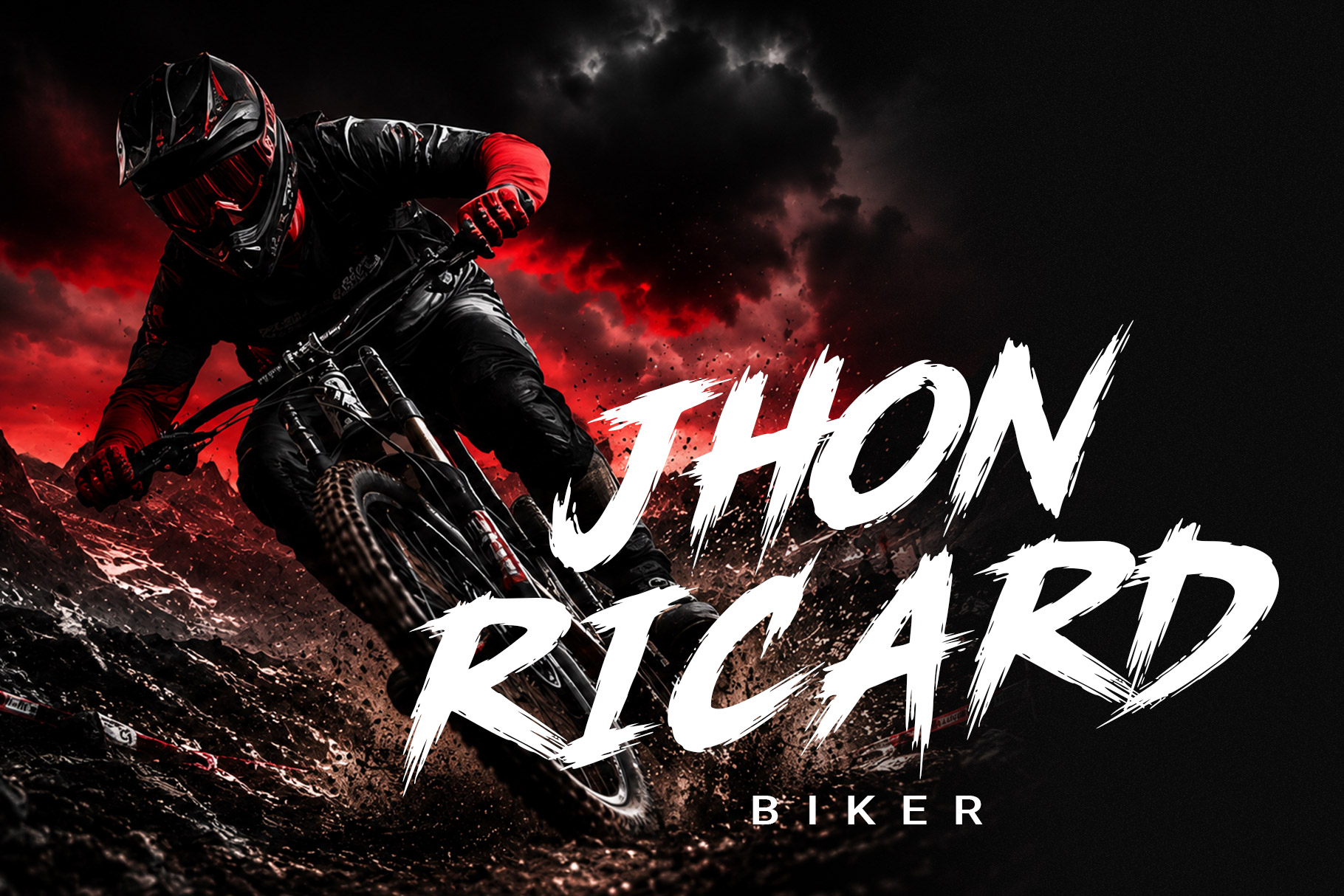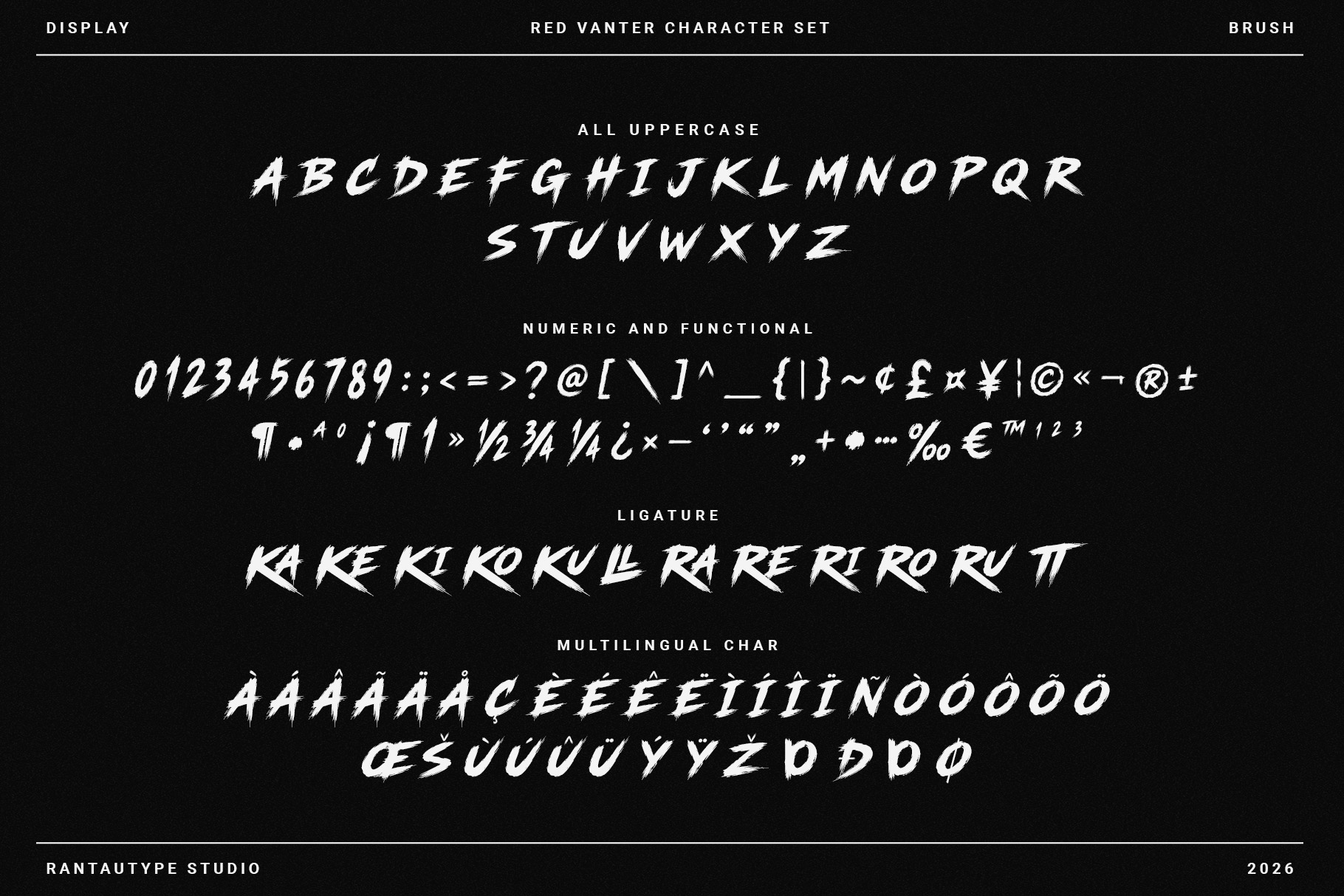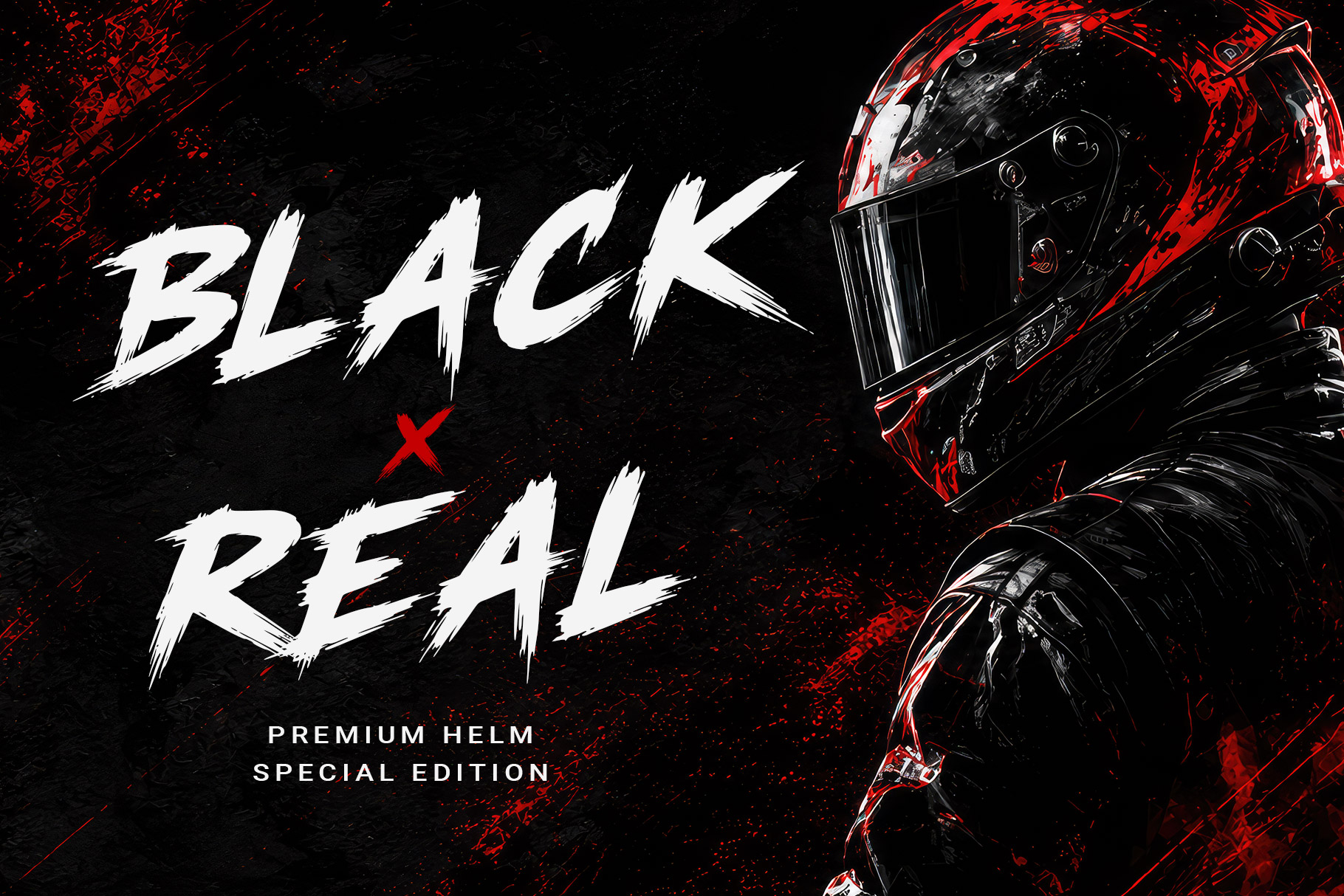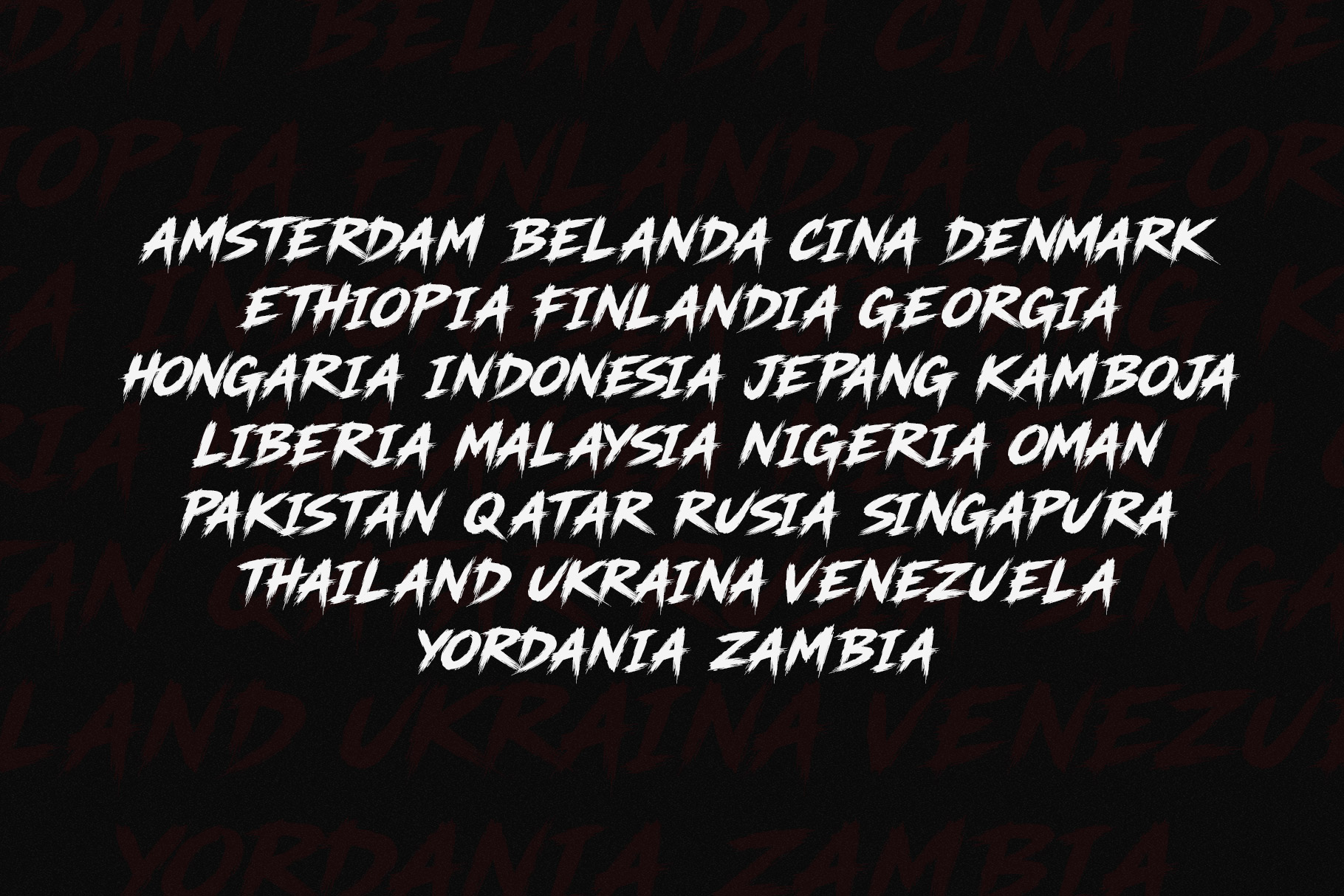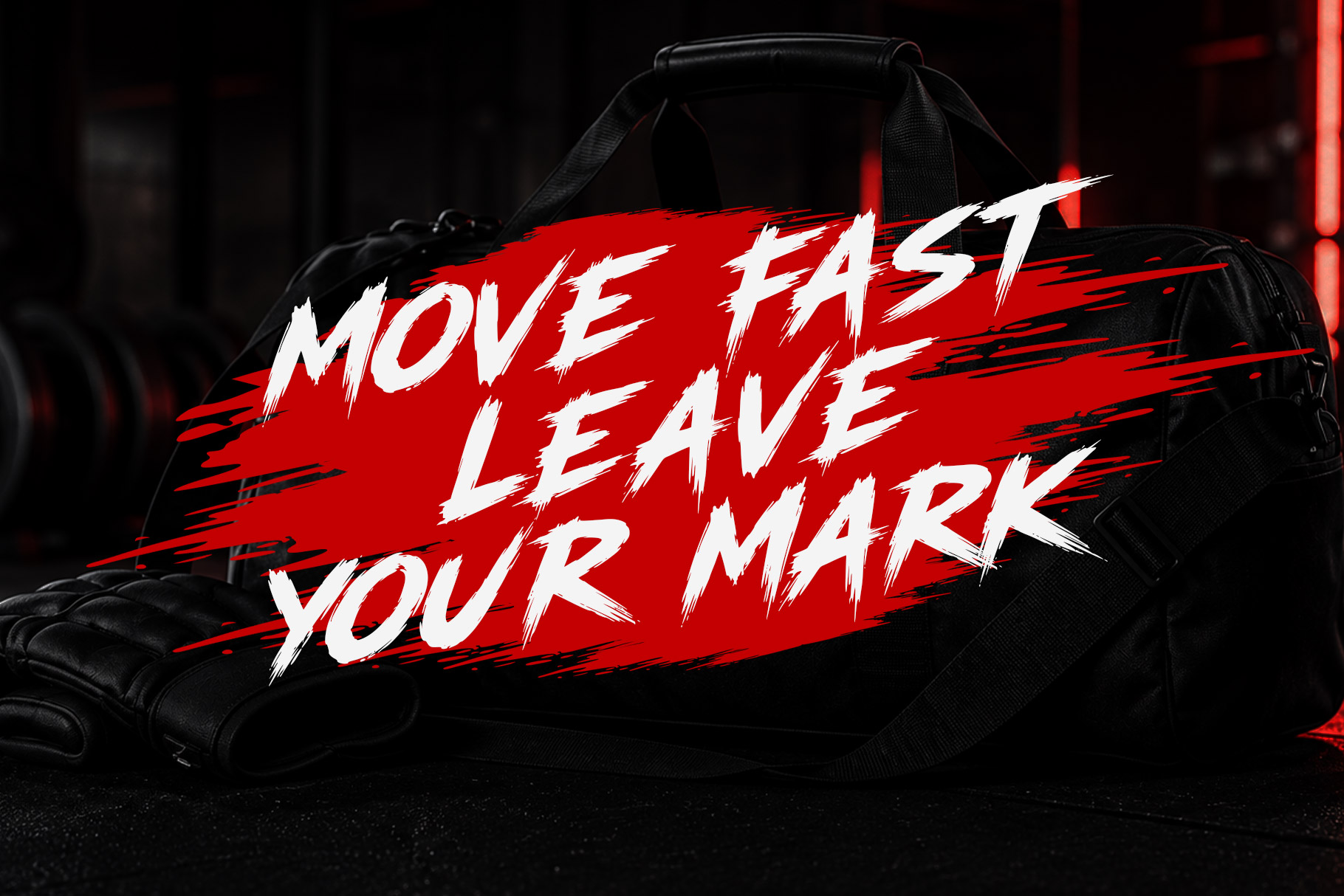
Red Vanter is a bold, high-impact brush display font designed to capture speed, energy, and fearless expression. Every letter is crafted with dynamic hand-painted strokes, featuring rough edges, sharp cuts, and dry-brush textures that create an authentic handcrafted appearance.
Red Vanter Brush Font